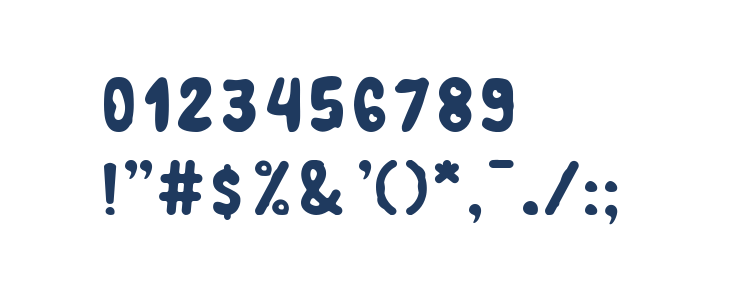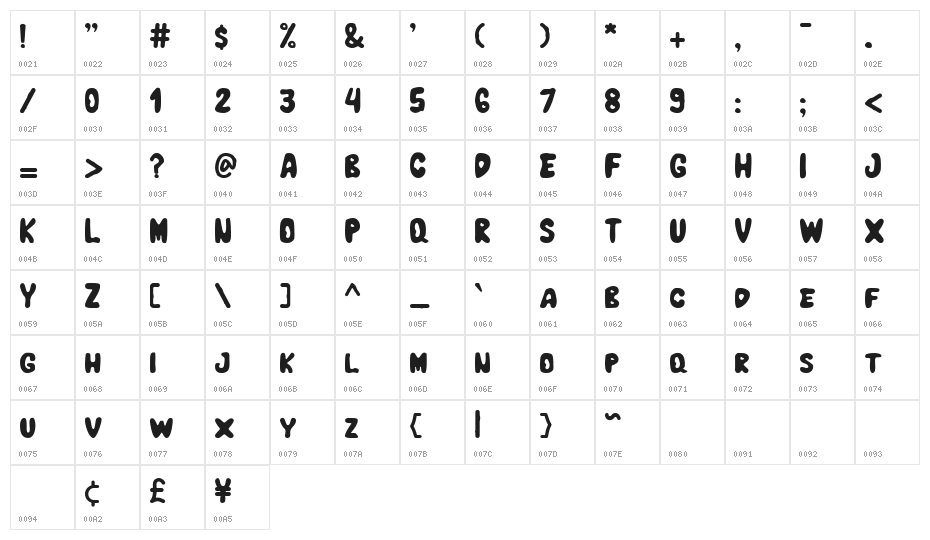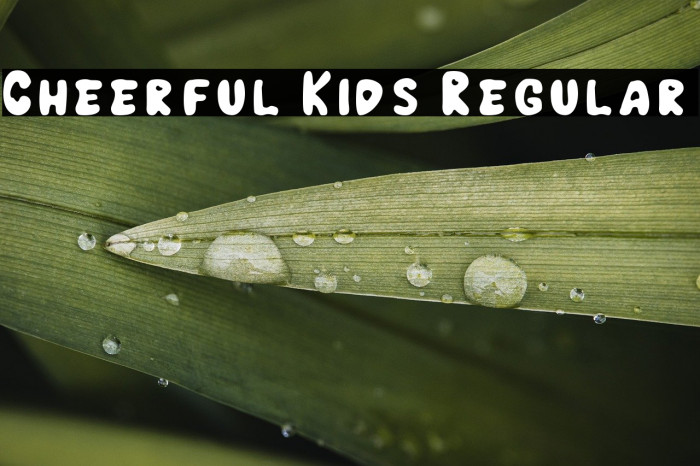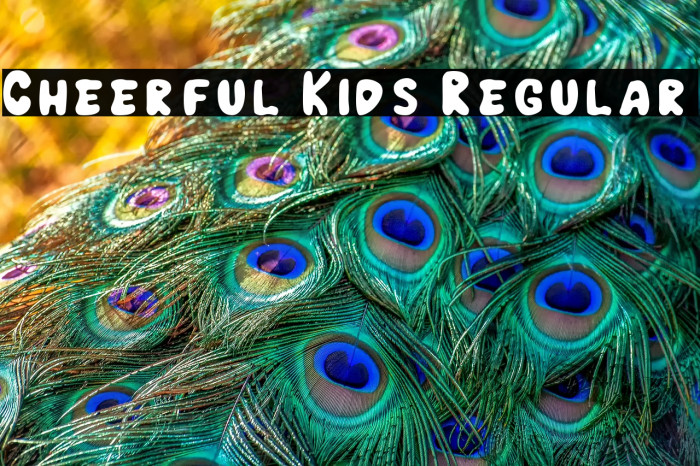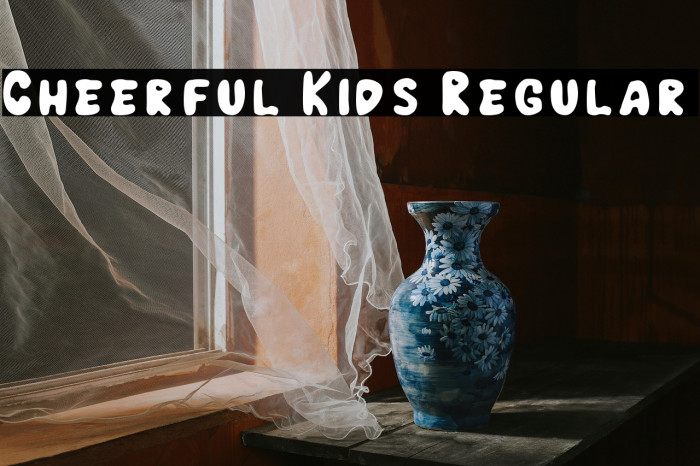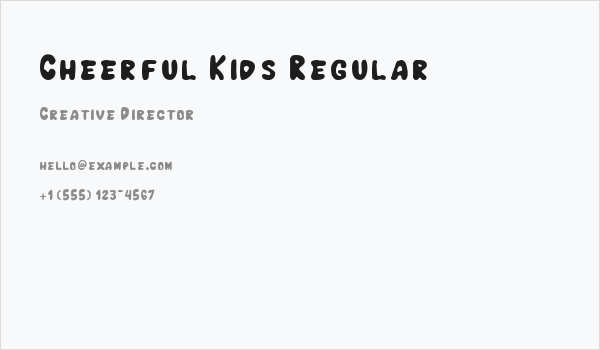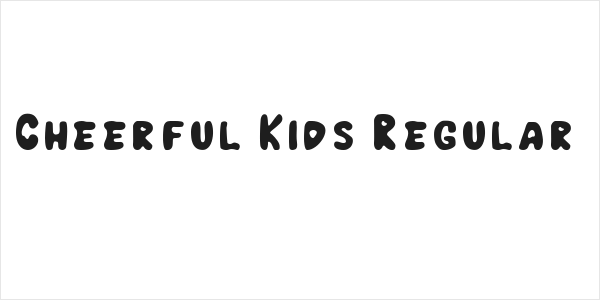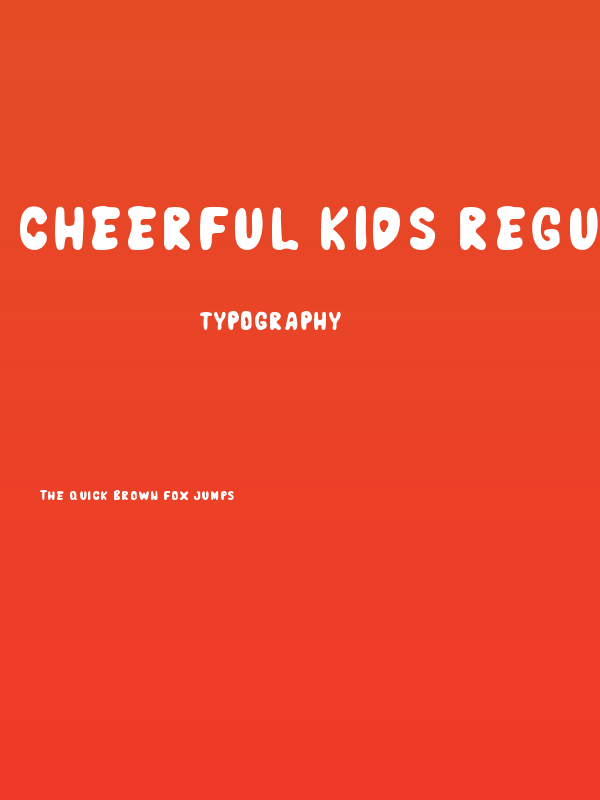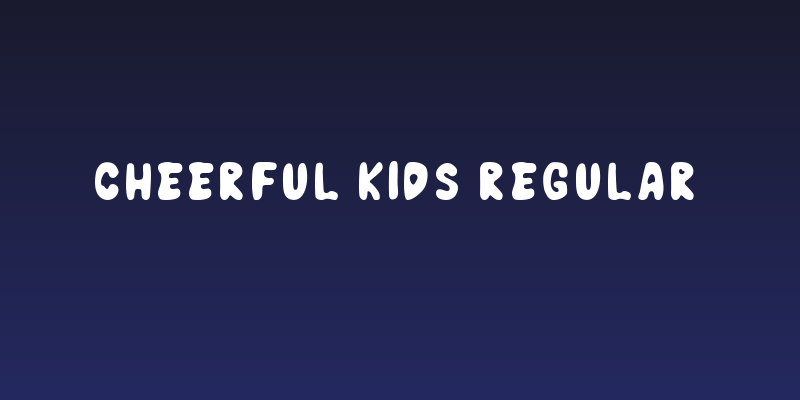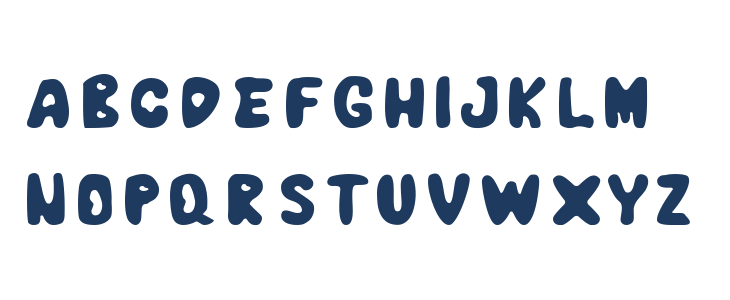
Cheerful Kids Regular Font
Cheerful Kids Regular Description
This playful and whimsical font features rounded, bubbly characters that exude a sense of fun and cheerfulness. The letters are bold and have a slightly irregular shape, giving them a hand-drawn appearance. The font maintains a consistent thickness throughout, with minimal contrast in stroke width. Its informal style makes it perfect for projects aimed at children or for adding a touch of lightheartedness to any design. The characters are well-spaced, ensuring readability while maintaining the font's playful nature.
| Proposed Projects | Ideal for children's books, playful posters, birthday invitations, and educational materials. |